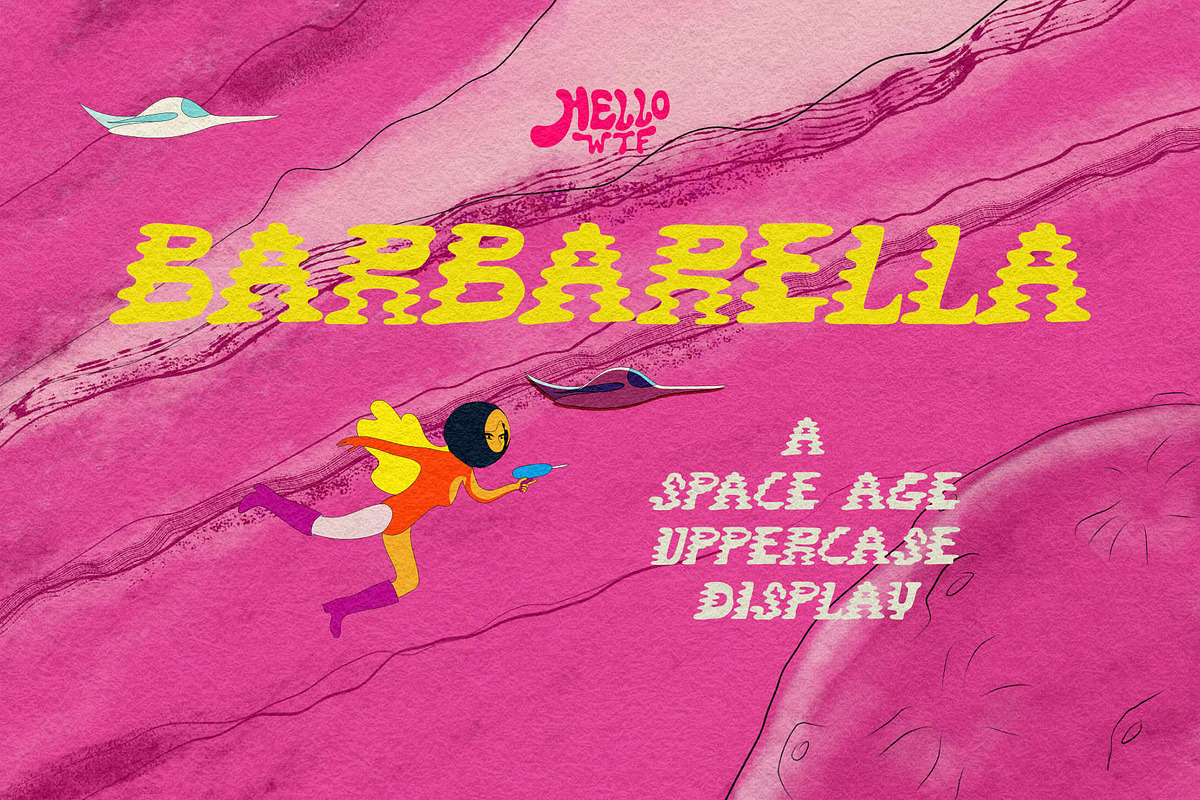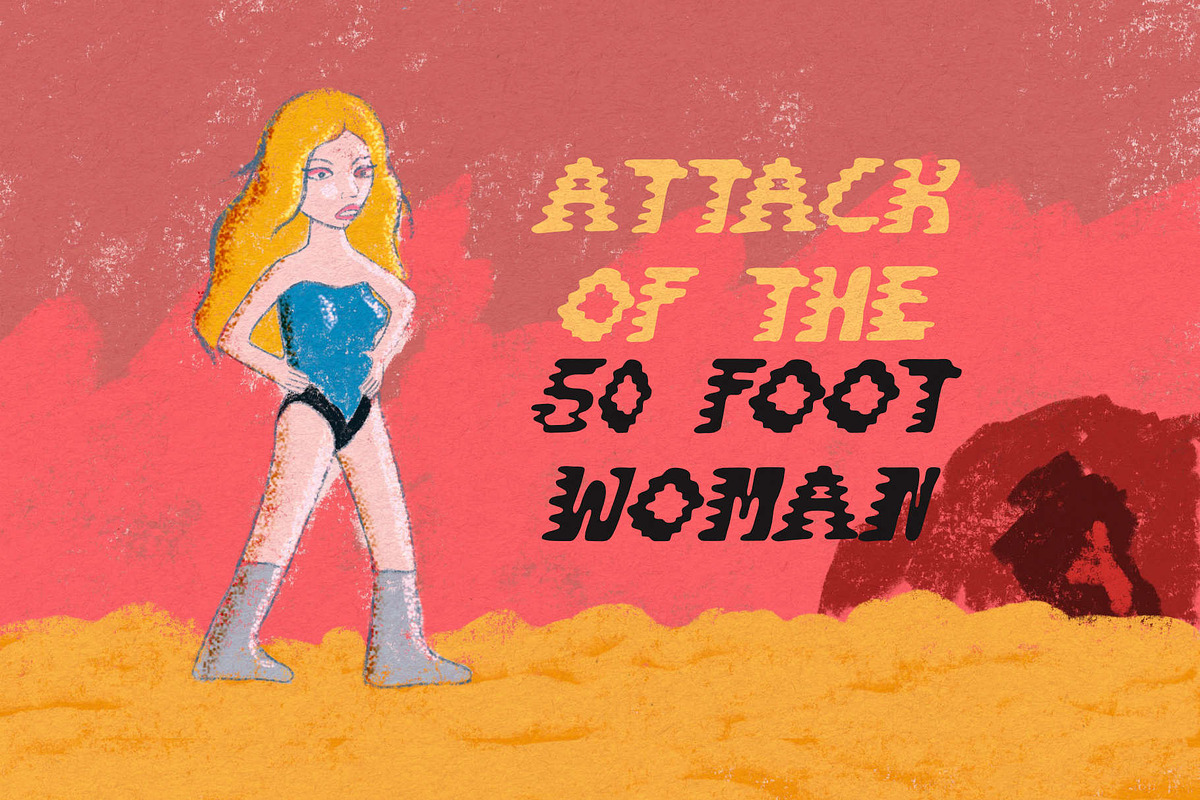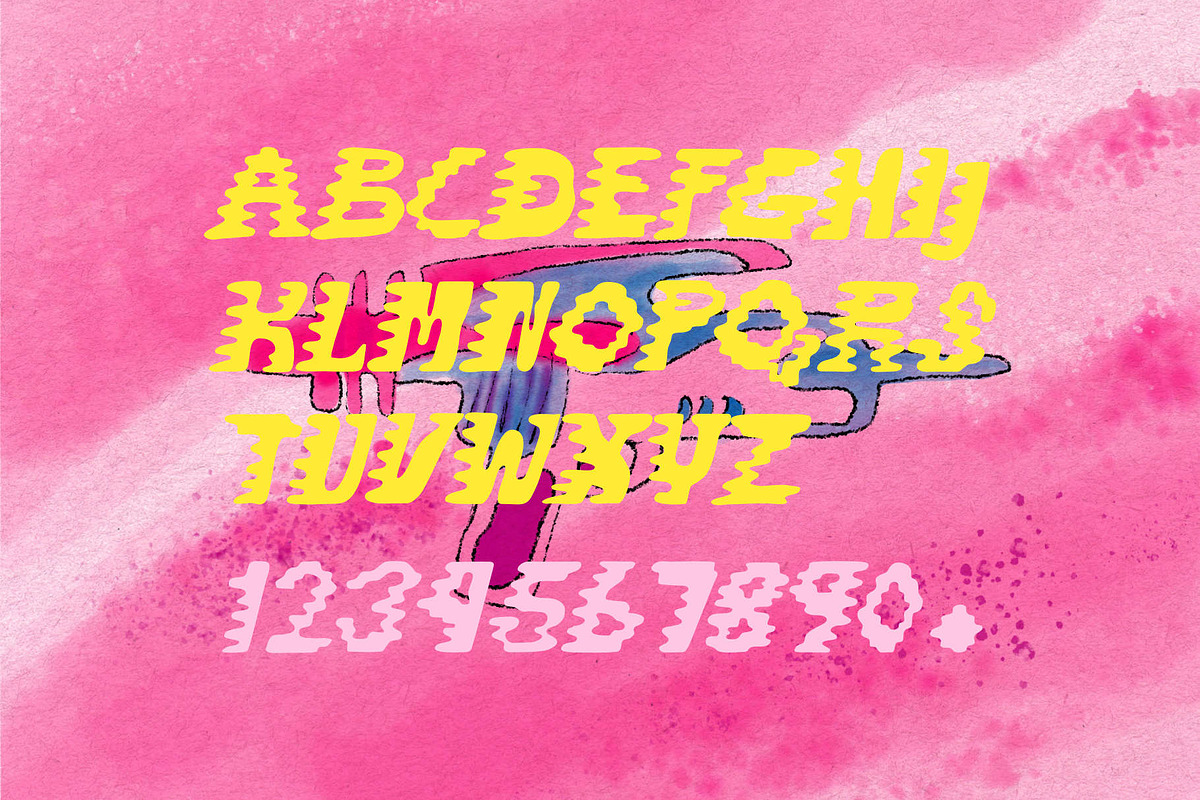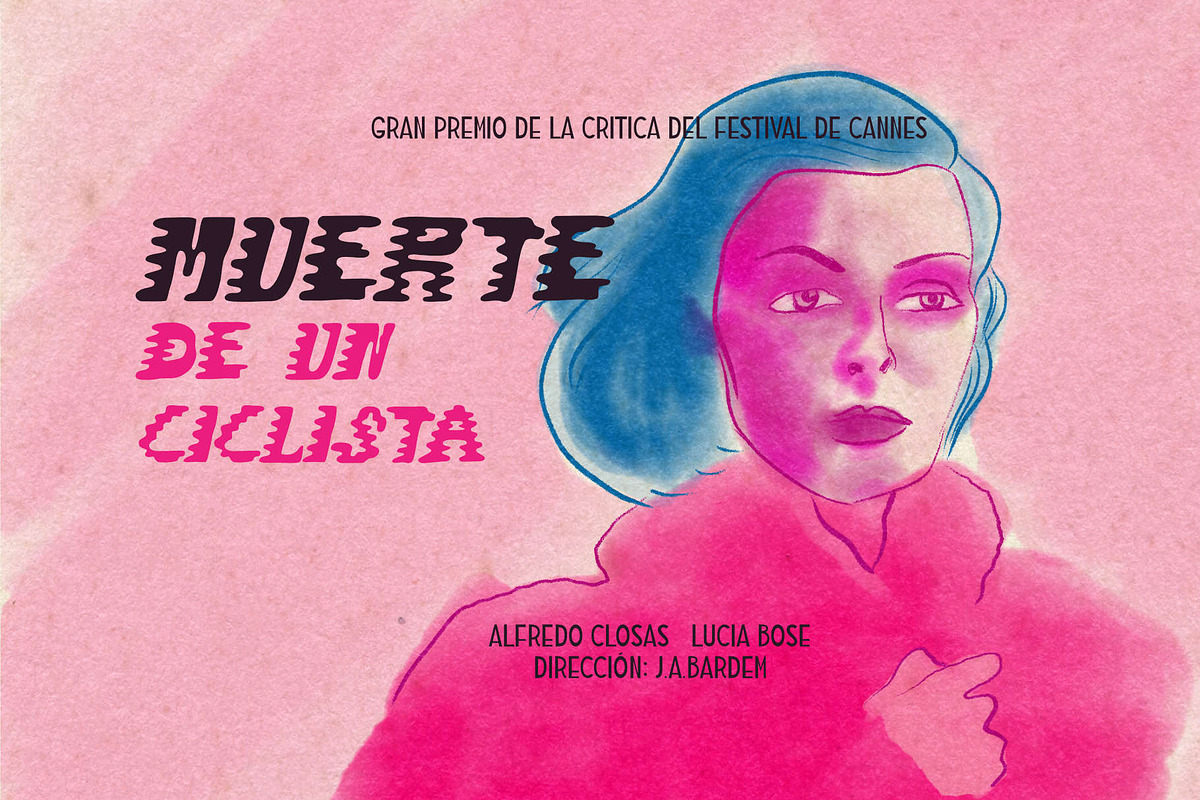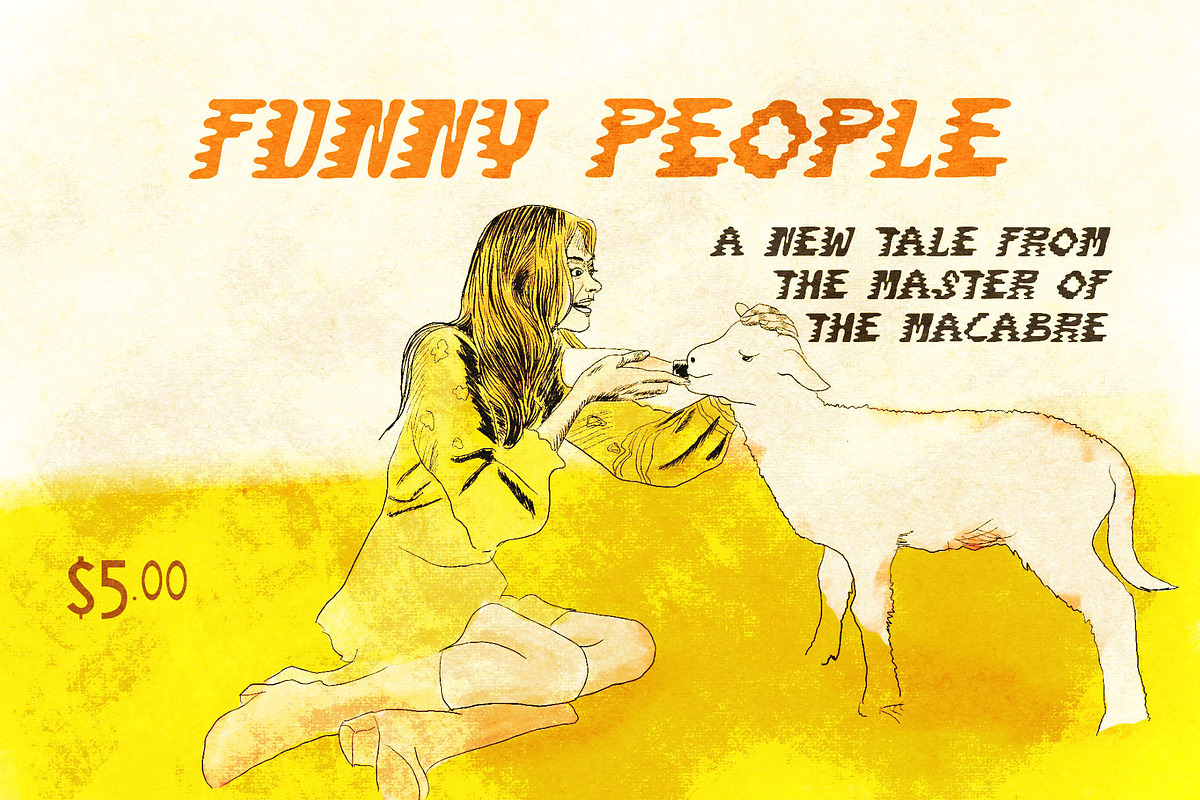
Barbarella
Barbarella is a type inspired by the campy sci-fi classic from the swinging sixties. And of course that Scott Weiland song. It's the space-age from the retro-future.